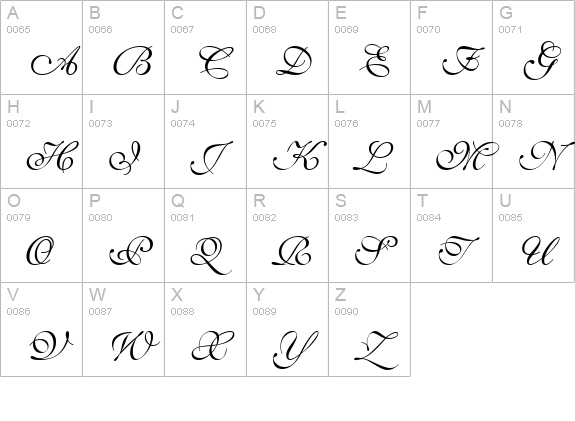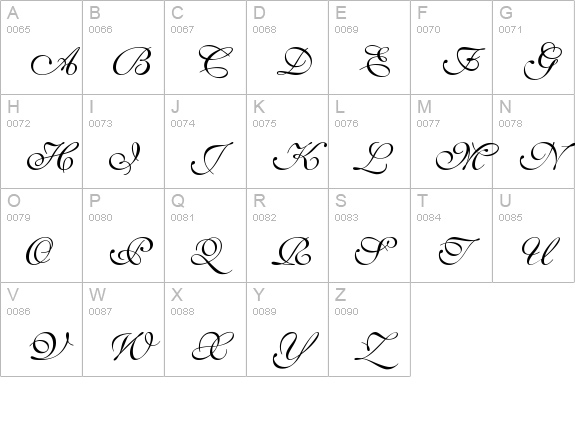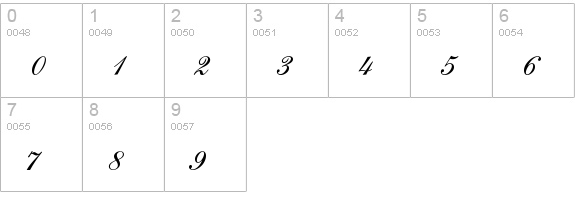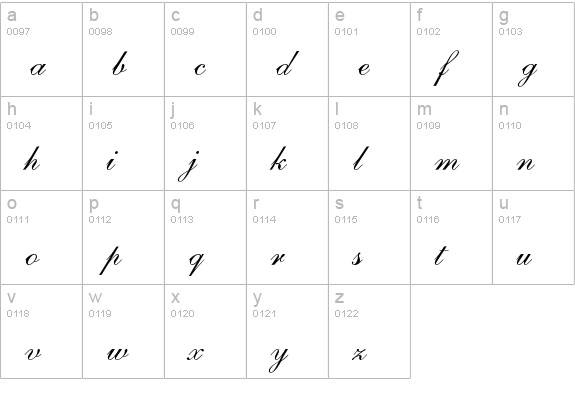
Shelley Volante BT font is a stunning and elegant typeface that exudes sophistication and grace. It combines the classic beauty of Shelley Allegro with a contemporary twist, making it perfect for various design projects. This font features delicate and flowing letterforms, with intricate details that add a touch of refinement to any text. The graceful curves and graceful strokes give Shelley Volante BT a unique and timeless appeal. One of the most remarkable aspects of Shelley Volante BT is that it is available for free. Yes, you read that right! This exquisite font can be freely downloaded at FontsMarket.com, ensuring that designers and creatives have access to this exceptional typeface without any cost. Whether you are designing wedding invitations, elegant branding materials, or sophisticated editorial layouts, Shelley Volante BT will surely elevate your project to a whole new level. Its versatility allows it to be used in both digital and print applications, making it a valuable addition to any designer's toolkit. With its generous character set, including uppercase and lowercase letters, numerals, punctuation marks, and special characters, Shelley Volante BT offers endless possibilities for creative expression. Its legibility and readability ensure that your message will be conveyed effectively, no matter the size or medium. So why wait? Take advantage of this incredible opportunity to enhance your designs with the timeless beauty of Shelley Volante BT. Download this remarkable font for free at FontsMarket.com and discover the endless creative possibilities it brings to your projects.